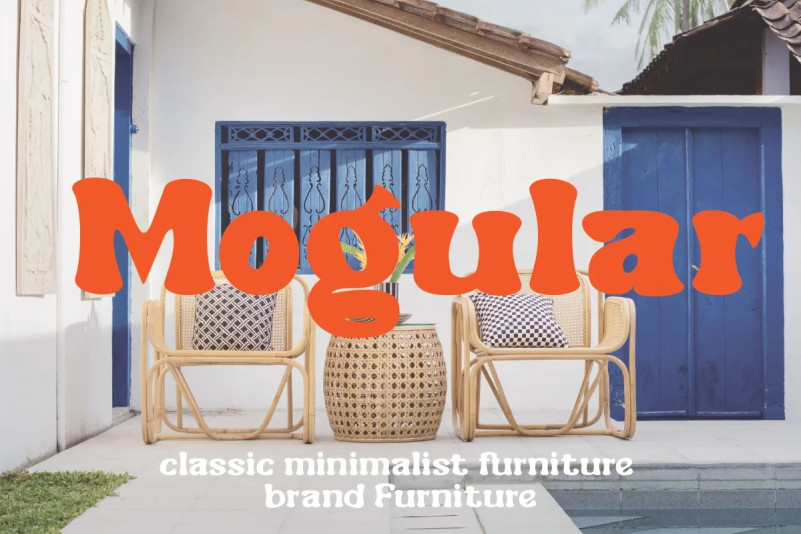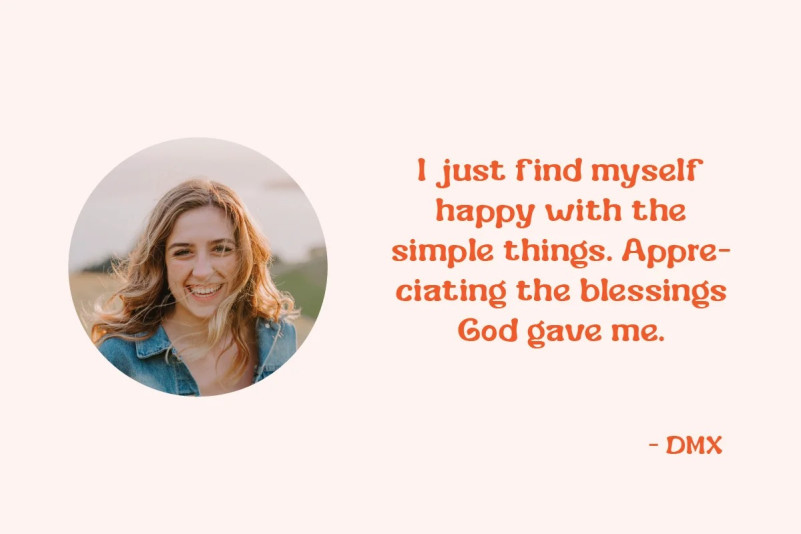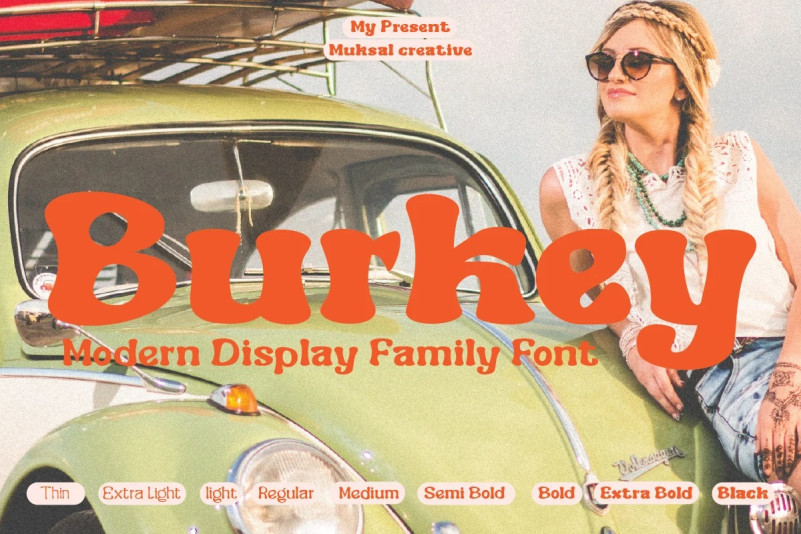
Burkey Font
Burkey Display Font is modern family of Display fonts. Koumon has 8 families font, starting from the small thin to the largest black. This typeface is versatile and can be used successfully in magazines, posters, branding, websites, etc.